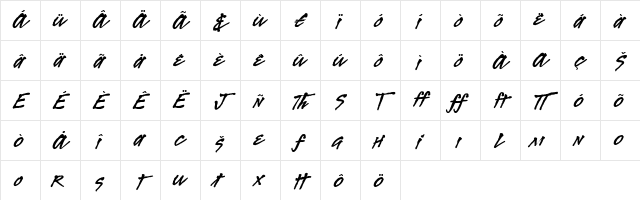
LegaultAlternates BoldItalic Free Font
LegaultAlternates BoldItalic
Style: BoldItalic
Design Context for LegaultAlternates
LegaultAlternates is a composed and adaptable typeface that performs quietly and consistently across a wide range of design contexts. The slanted form adds forward momentum and visual energy. Its bold stroke weight gives it real presence on the page.
Pro Tip: Use LegaultAlternates for emphasis, pull quotes, and subheadings where its slanted energy can add rhythm to the layout.